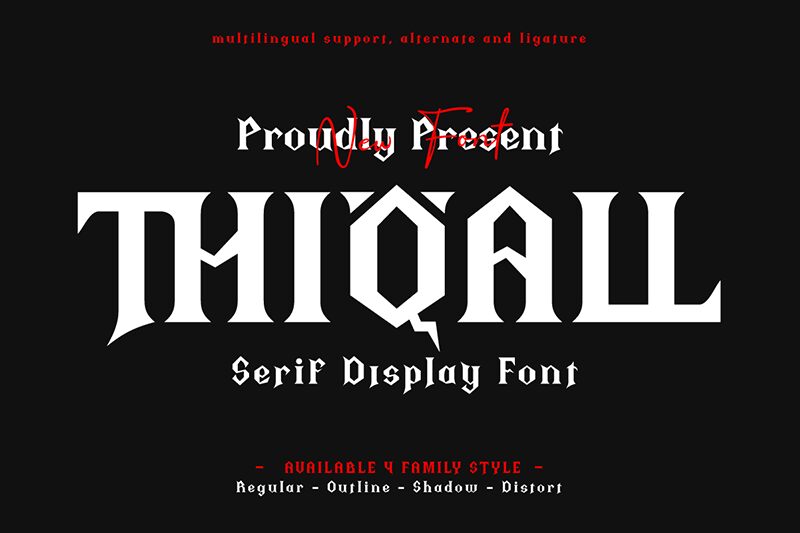
Thiqall font family by twinletter is a free gothic typeface which combines angular forms into a harmonious composition. The forms are distinguished by their decorative, ornamental elements and a historic feel that projects strength and impact. Expressive and elegant forms define this font that comes in 2 different styles.
Thiqall was created with the intention of mirroring the characteristics of gothic fonts commonly used in the past for manuscripts, signage, and posters. It would therefore work perfectly for modern posters, magazines, websites, packaging, and many other graphic design projects.